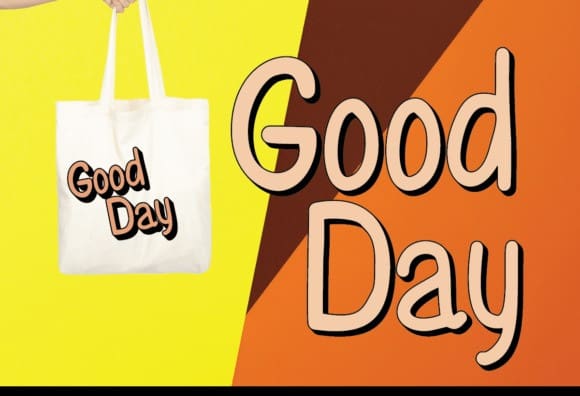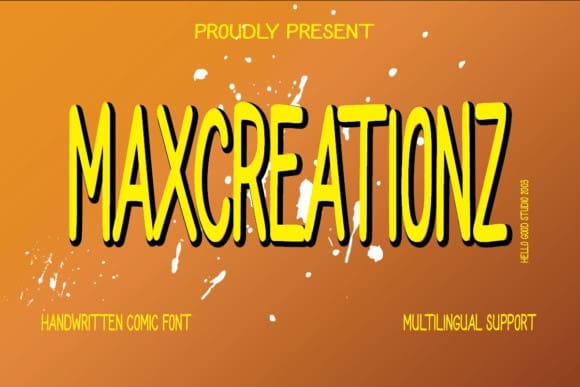
Maxcreationz Playful Font
Maxcreationz Playful Font is a type of comic font that is made by hand so it looks natural when used for a project or job. It is suitable for logos, magazines, social media, school related projects, banners, invitations and more.